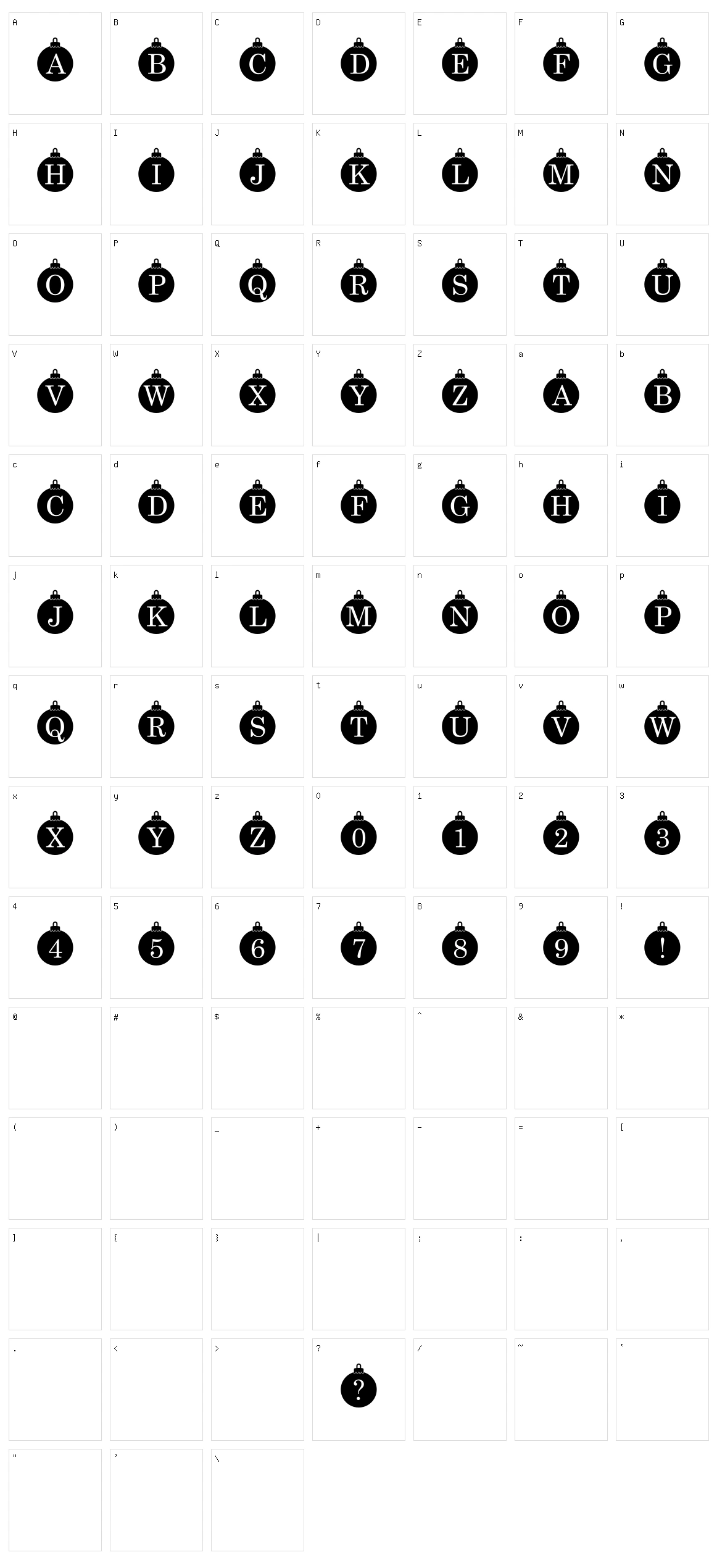
The free font Bauble Monogram is carefully designed by www.freesvgdesigns.com, showcasing a thoughtful balance of creativity and usability and falls under the Christmas font style. When you download the ZIP file, it contains only 5.69 KB of font files, making it lightweight and quick to download. Please review the license details below to understand permitted usage and distribution rights. If license information is not available, we recommend using this font for personal projects only or contacting the author directly for commercial usage permissions.